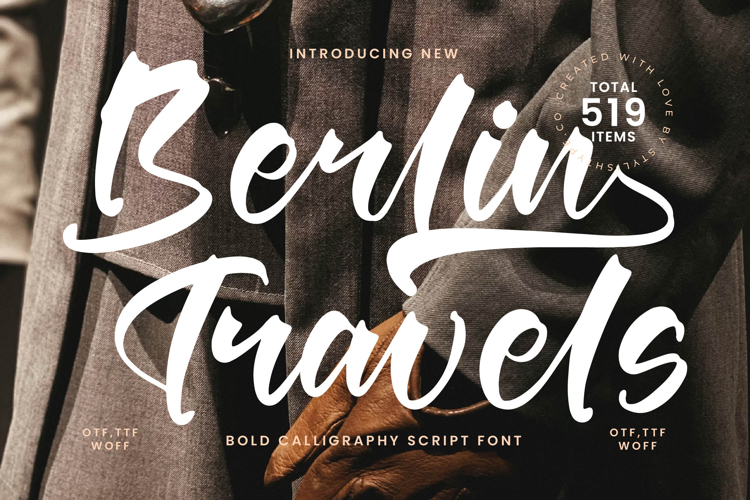
Berlin Travels - Bold Calligraphy Script
Unleash the power of authentic expression with Font Berlin Travels - Bold Calligraphy Script Script, a masterful script typeface designed to captivate and charm. This remarkable font embodies a bold, artistic spirit, featuring fluid, expressive strokes that echo genuine hand-lettering. Its robust character weight ensures an immediate visual impact, making every headline and logotype unforgettable and establishing a strong, memorable brand presence.
Experience the art of visual storytelling through its dynamic design, where each letter flows seamlessly into the next, creating a harmonious and aesthetically pleasing composition. Font Berlin Travels - Bold Calligraphy Script Script boasts a high-contrast texture and an organic, unrefined elegance that conveys both sophistication and approachability. It’s the ideal choice for projects demanding a touch of flair without compromising on professional polish.